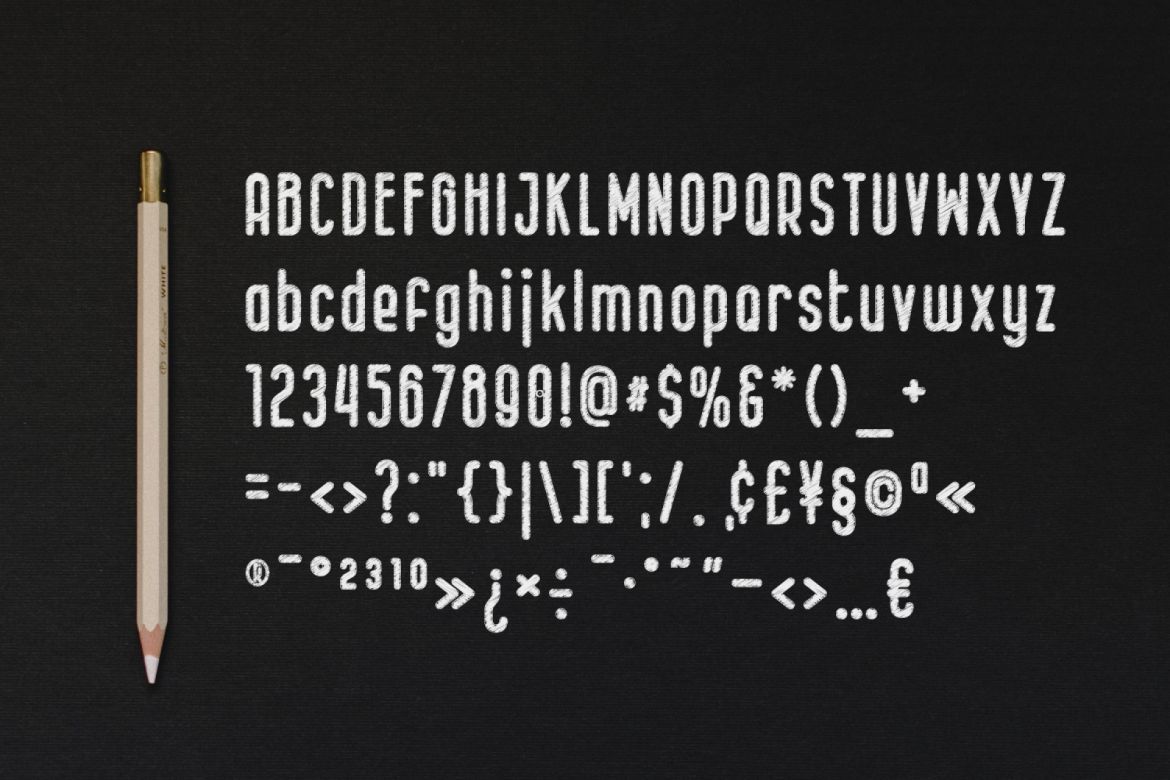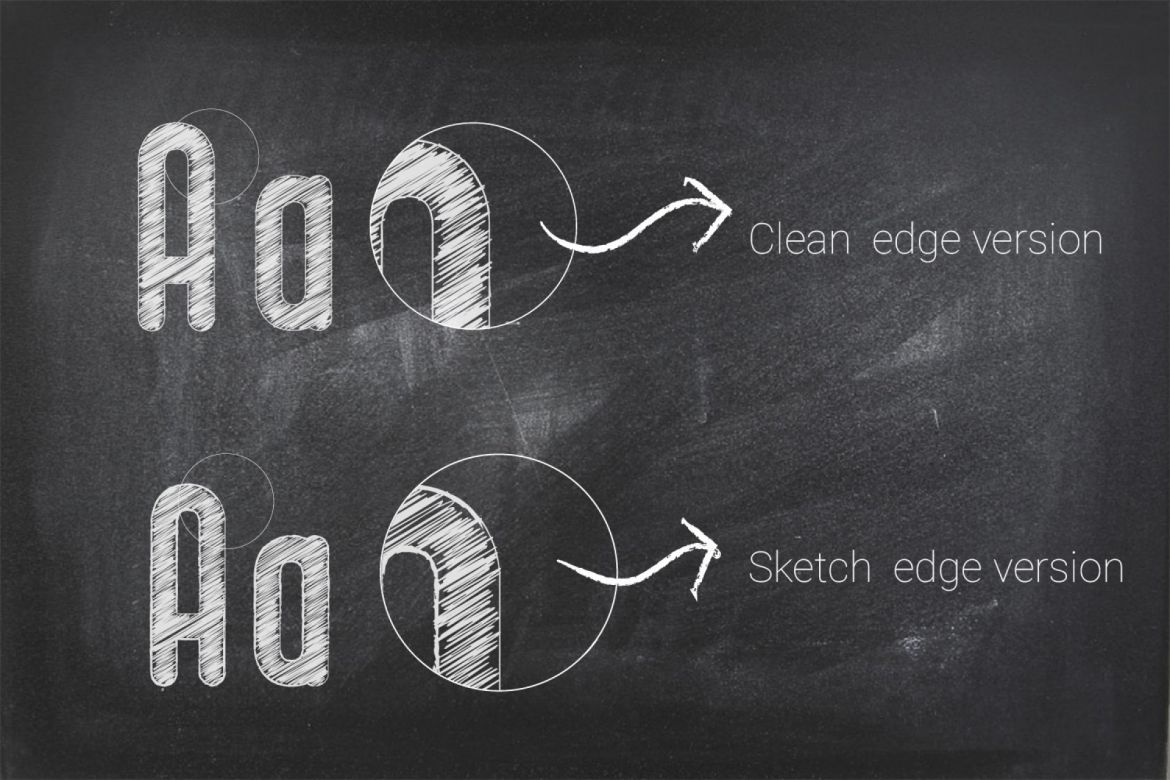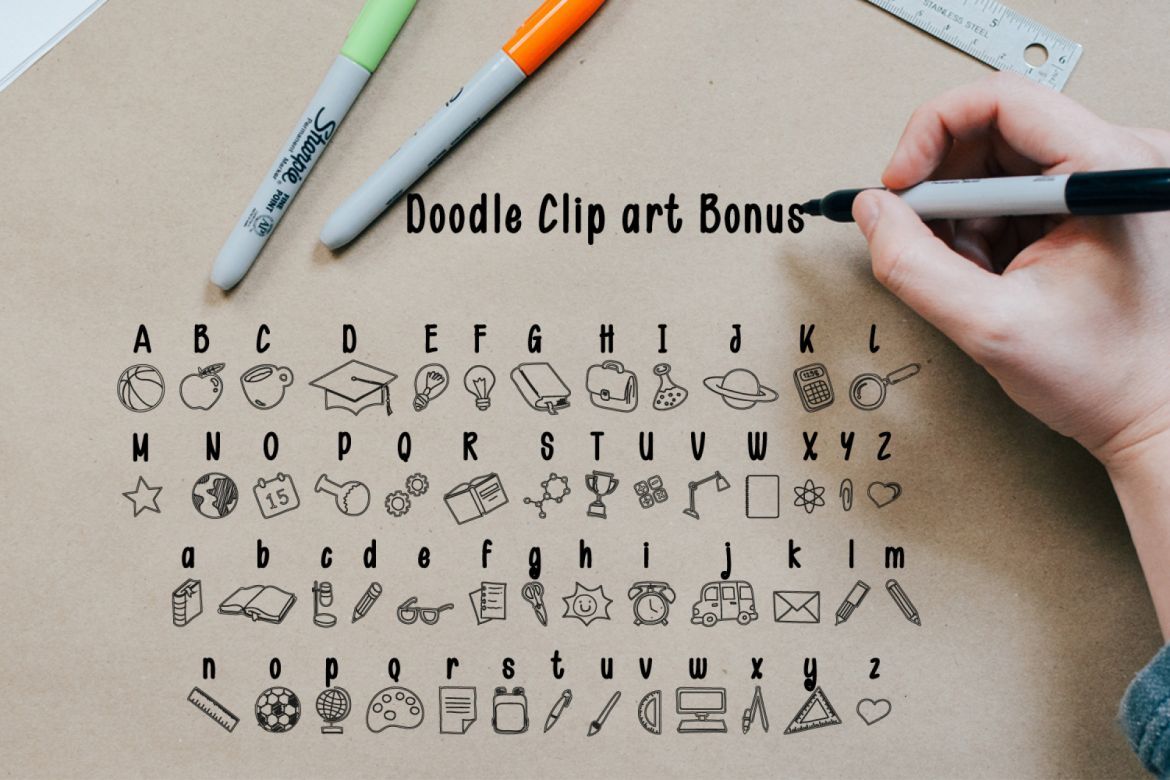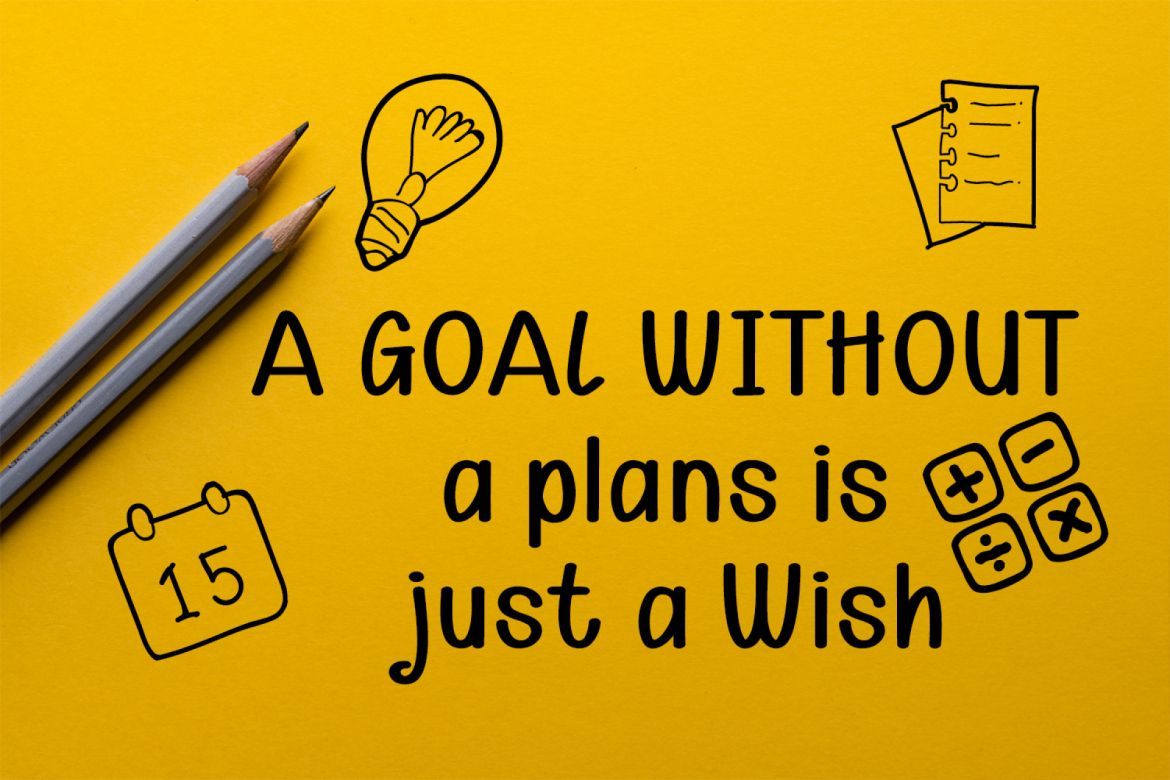
Kids Knowledge Font Family
Kids Knowledge is a striking family. It includes 5 amazing styles which can be combined perfectly, giving you the opportunity to create multiple unique designs in an instant. It was inspired by children’s science projects and will give a playful touch to your designs.
Also included is a bonus in the form of 52 clip-art vectors
• 5 family font
• plus doodle